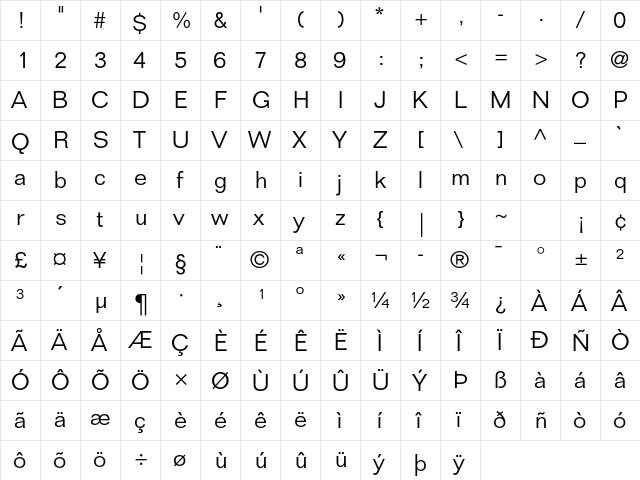
Folio Std Light
| Designer | Konrad F. Bauer, Walter Baum |
Design Context for Folio Std Typeface
Folio Std offers clean, dependable letterforms without strong stylistic allegiance, making it a practical choice for designers who need flexibility. Its slender proportions lend an understated elegance to any composition.